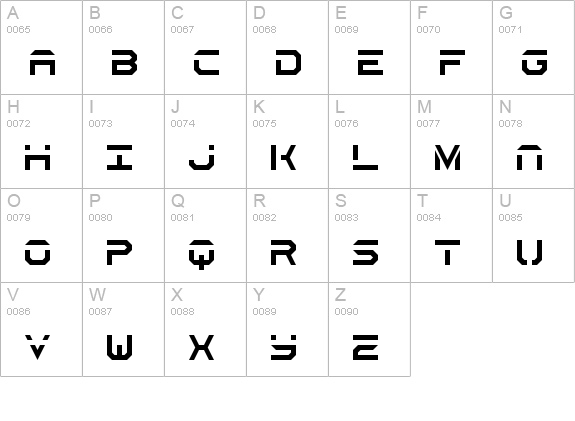
Secrets Stencil Regular Font Details
Secrets Stencil Regular is the standard, neutral variant in the Secrets typeface family \xE2\x80\x94 well suited to general body text, paragraphs, and standard typographic work.
The Secrets Stencil Regular font is a captivating and versatile typeface that adds a touch of mystery and intrigue to any design project. Its clean and stylish stencil design creates a perfect balance between elegance and edginess, making it ideal for both contemporary and vintage-inspired designs. With its precise and intricate letterforms, Secrets Stencil Regular is guaranteed to make a lasting impression. Whether used for headlines, logos, or branding materials, this font will effortlessly command attention and create a sense of sophistication. One of the best features of Secrets Stencil Regular is that it is freely available to download at FontsMarket.com. This means that you can easily add this unique font to your collection without any cost. Its availability for free allows designers and creatives to experiment with it and explore its potential in various projects. The versatility of Secrets Stencil Regular extends beyond its use in print and digital designs. Its bold and eye-catching appearance also makes it a great choice for crafting customized merchandise, such as t-shirts, mugs, or posters. By incorporating this font into your designs, you can effortlessly create visually appealing and memorable products. In conclusion, Secrets Stencil Regular is a must-have font for designers looking to add a touch of uniqueness and elegance to their projects. Its availability for free at FontsMarket.com makes it easily accessible to everyone, allowing for endless creative possibilities. So, go ahead and download Secrets Stencil Regular today to unlock the secret to captivating and visually stunning designs.